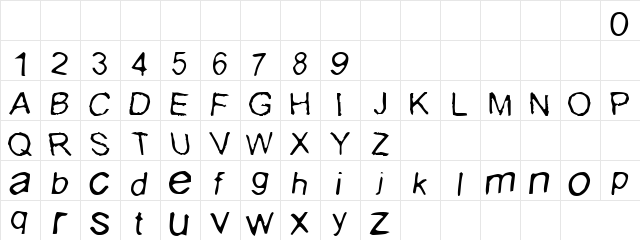
Slanting Down Regular
Design Context for Slanting Down Typeface
Slanting Down is a composed and adaptable typeface that performs quietly and consistently across a wide range of design contexts.